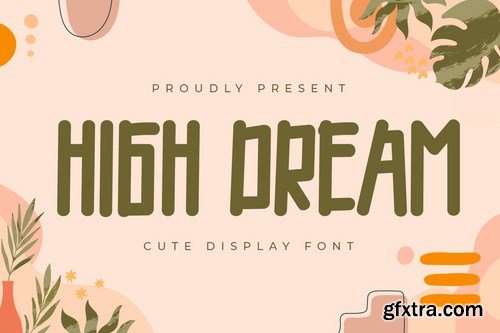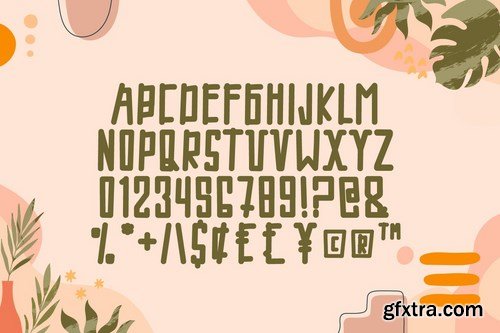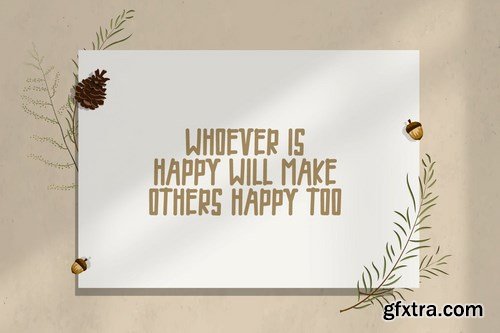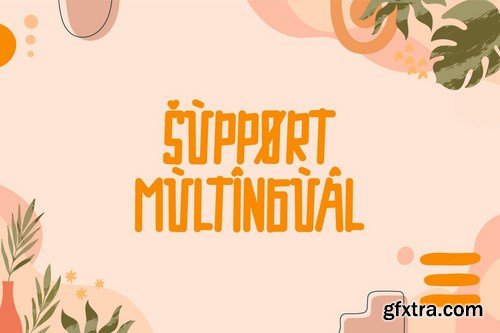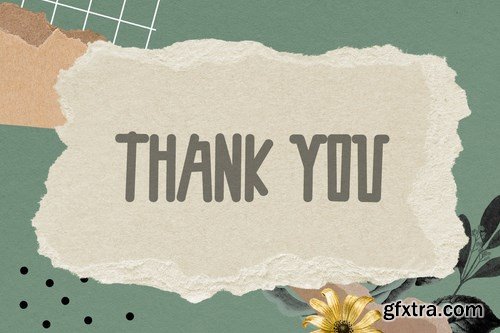
High Dream is a display font that fits perfectly into anything. Its casual charm makes it look very down-to-earth, easy to read, and, in the end, very versatile. Add this beautiful display font to your every creative idea. This font is perfect for quotes, shirt designs, websites, branding, children’s designs, blogs, logos, invitations, and more!